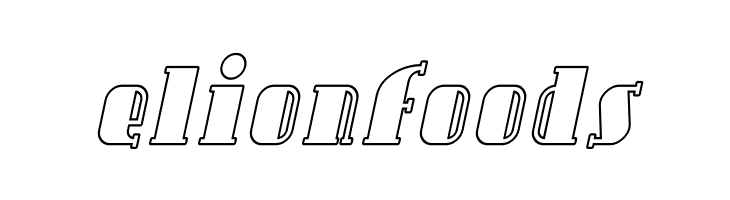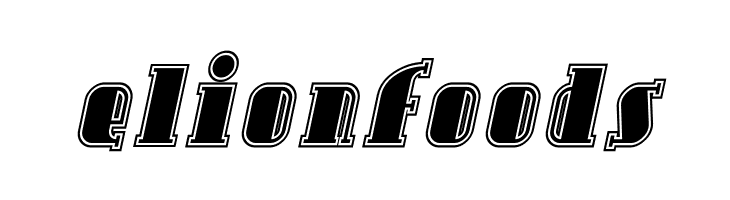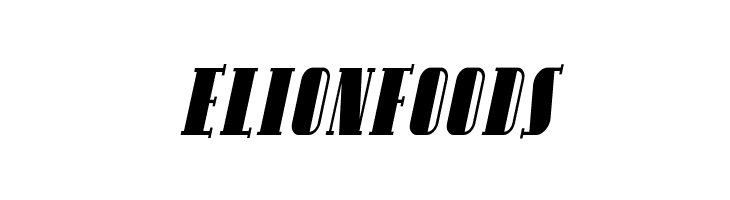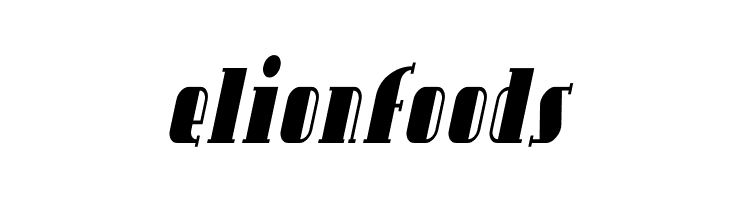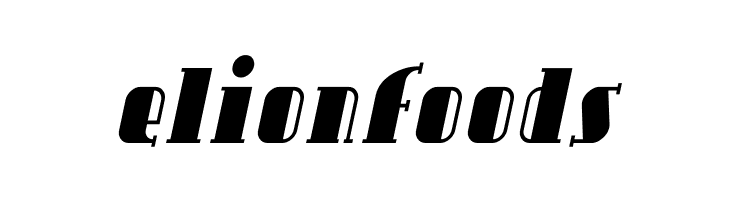
• Avondale Cond Italic
A sleek, condensed italic serif font with sharp serifs and a modern twist.
• Avondale Inline
A bold, decorative font with inline detailing for a vintage-modern look.
• Avondale Inline Italic
A bold, italic, inline font with sharp serifs and dynamic style.
• Avondale Italic
A bold, italic serif font with strong forward slant and striking visual impact.
• Avondale Outline
A bold, outlined font with a strong, dimensional presence.
• Avondale Outline Italic
An elegant italic outline font with a modern yet classic appeal.
• Avondale SC
A bold, vintage-inspired font with high contrast and strong vertical lines.
• Avondale SC Cond
A bold, condensed font with strong vertical emphasis and minimal serifs.
• Avondale SC Cond Italic
A bold, condensed italic font with high contrast and a modern, dynamic style.
• Avondale SC Inline
A bold, inline serif font with a classic yet modern appeal.